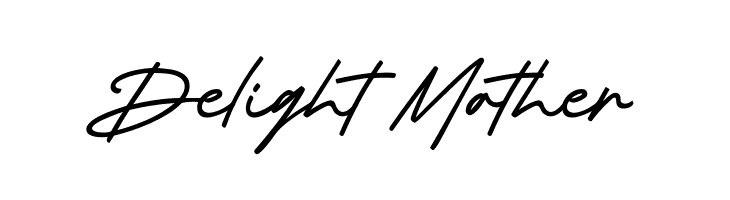
An elegant script font with flowing, intricate letterforms and a modern calligraphic style.
A dynamic and flowing script font with elegant cursive letterforms.
An elegant, flowing script font with graceful loops and smooth cursive strokes.
An elegant, flowing script font with calligraphic style and dynamic contrast.
An elegant, flowing script font with decorative swashes and smooth cursive strokes.
An elegant and flowing script font with dynamic, cursive strokes.